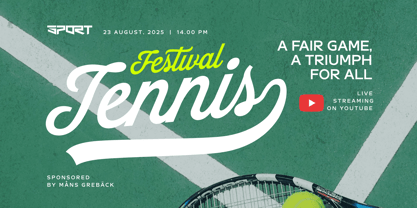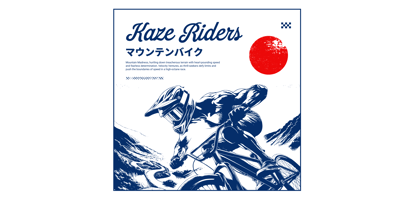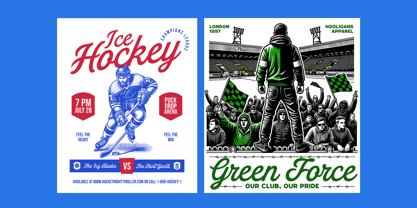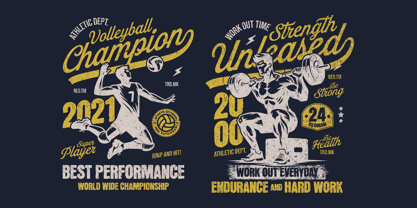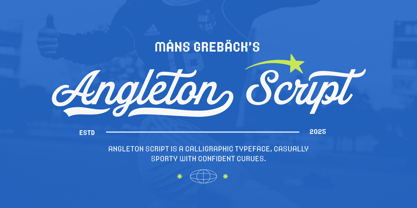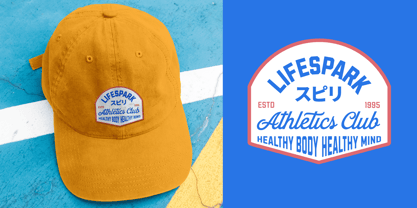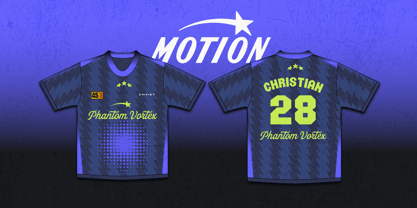
Angleton Script
by Mans Greback
The Angleton Script Font Family was designed by Måns Grebäck and published by Mans Greback. Angleton Script contains 4 styles and family package options.
Angleton Script is a calligraphic typeface, casually sporty with confident curves.
It is built with a custom feel in mind, while also retaining elegance and perfection. It has a welcoming appearance with a soft and confident mood. Angleton Script is built with a solid baseline which gives a professional look for playful contexts. It could be used in a team logotype, a classy invitation or a cool poster alike.
Use underscore _ to make a swash.
Example: Ball_
Use multiple underscores to make longer tails.
Example: Champions_______
The font is built with advanced OpenType functionality and guaranteed top-notch quality, containing stylistic and contextual alternates, ligatures and more automatic and manual features; all to give you full control and customizability.
It has extensive lingual support, covering all Latin-based languages, from North Europa to South Africa, from America to South-East Asia. It contains all characters and symbols you'll ever need, including all punctuation and numbers.
This casual script font is created by Mans Greback.